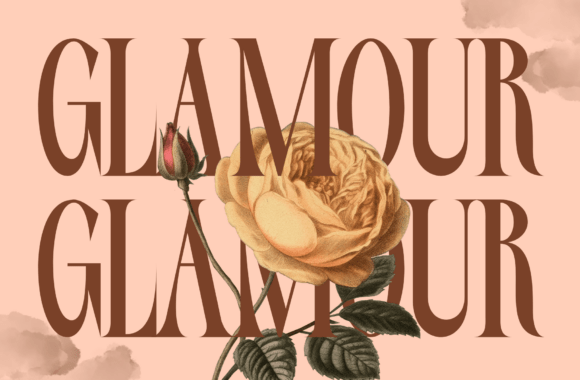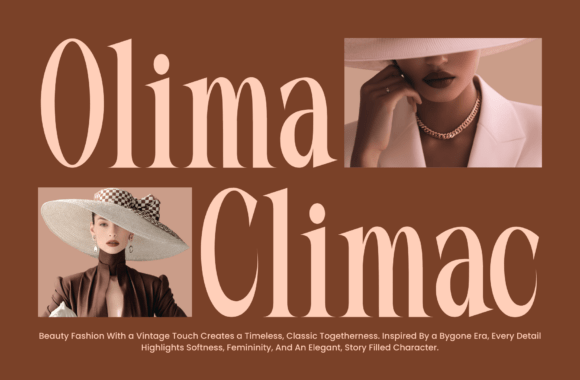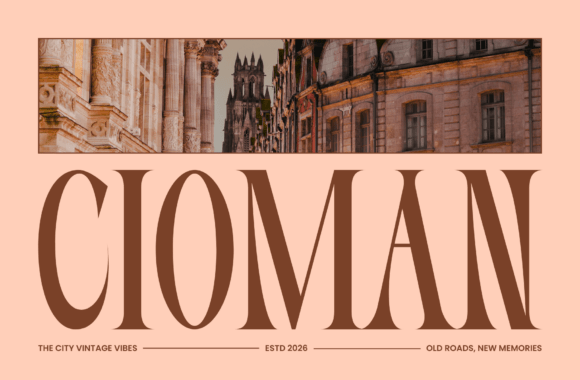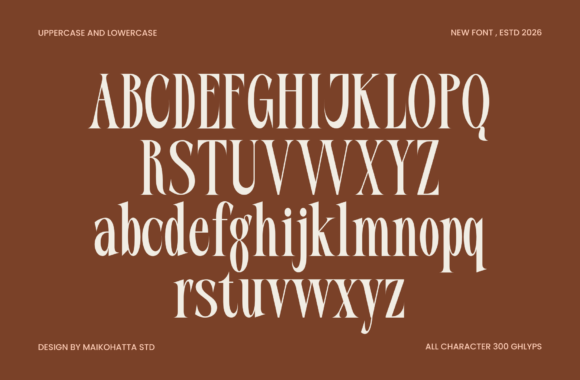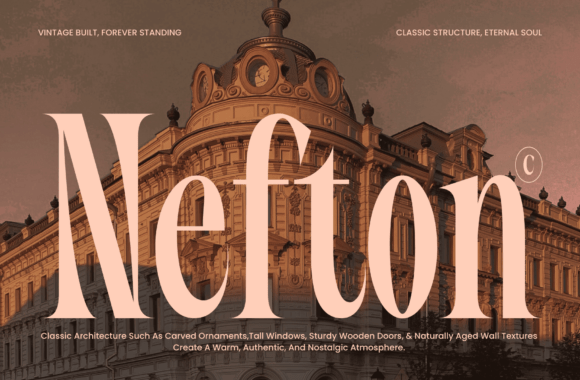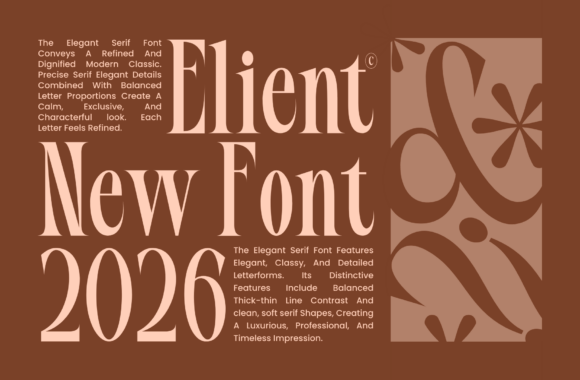
Introducing Elient: The Elegant Fashion Serif Font You Need
Have you ever been in the middle of a design project, pouring your heart and soul into every detail, only to realize that the perfect font is missing? I’ve been there too. Recently, I was working on a luxury fashion brand’s visual identity, and I found myself searching for a font that exuded elegance, sophistication, and a touch of modernity. That’s when I discovered **Elient**, a stunning serif font that has become my go-to for high-end designs.
What Makes Elient Special?
Elient is a modern, elegant serif font designed to bring luxury, beauty, and sophistication to your creative projects. Inspired by high-fashion editorials and timeless classic typography, Elient features refined letterforms with smooth curves and stylish contrast, making it perfect for premium design needs.
This font is ideal for fashion branding, beauty products, magazine layouts, logos, wedding designs, and high-end promotional materials. Elient delivers a classy and confident visual style while remaining clean and readable across various design applications.
An Honest Review of Elient
- ✨ Elegant and refined design: Elient’s sleek lines and smooth curves make it perfect for luxury brands and high-end designs.
- ✅ Multilingual support: With a complete set of characters, Elient offers flexibility for both digital and print projects.
- 💡 OpenType features: Elient comes with a range of OpenType features, including stylistic alternates and glyphs, making it versatile for various design applications.
- 📚 Readability: Despite its elegant design, Elient remains clean and readable across various design applications.
⚠️ While Elient is an excellent font, it’s not without its limitations. Some users might find that the font’s elegance can make it less suitable for body text or longer paragraphs. Additionally, the font’s stylistic alternates and glyphs require a bit of experimentation to get the most out of them.
🤔 Another potential quirk is that Elient’s luxury feel might not be the best fit for more playful or casual designs. However, this is largely a matter of personal preference and the specific needs of your project.
The Backstory Behind Elient
Elient was designed with the goal of creating a font that embodies the luxury and sophistication of high-end fashion brands. The design process involved extensive research into classic typography and modern design trends, resulting in a font that is both elegant and modern.
The designer behind Elient drew inspiration from high-fashion editorials, timeless classic typography, and the world of luxury branding. The result is a font that is both refined and stylish, perfect for adding a touch of exclusivity and modern luxury to your designs.
Q: What is Elient font?
A: Elient is a modern, elegant serif font designed for luxury brands and high-end designs.
Q: What design applications is Elient suitable for?
A: Elient is ideal for fashion branding, beauty products, magazine layouts, logos, wedding designs, and high-end promotional materials.
Q: Does Elient support multilingual text?
A: Yes, Elient comes with a complete set of characters and multilingual support, making it versatile for various design applications.
Q: Can I use Elient for body text?
A: While Elient is elegant and refined, it’s primarily designed for headlines and titles. However, it can be used for body text in certain design applications, depending on the desired aesthetic and readability.